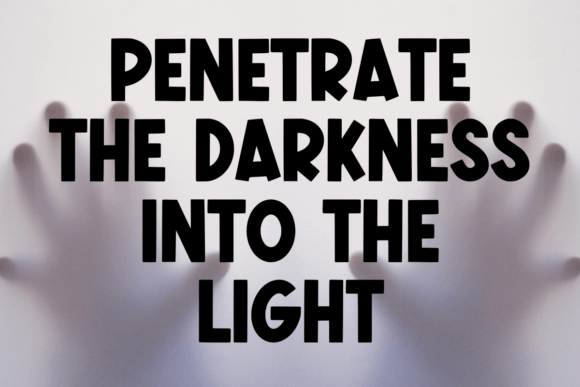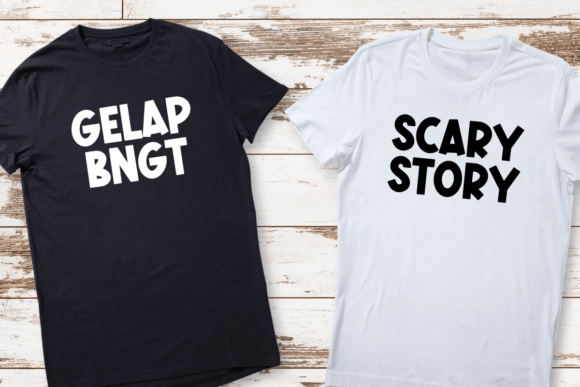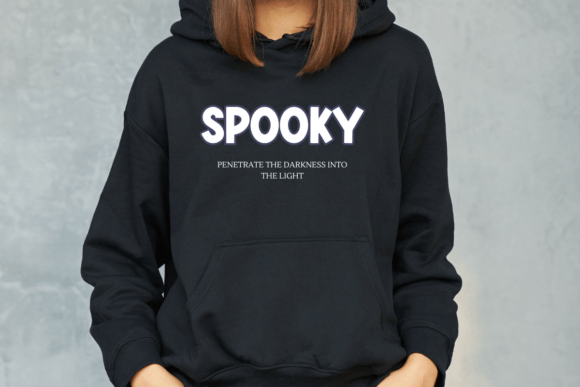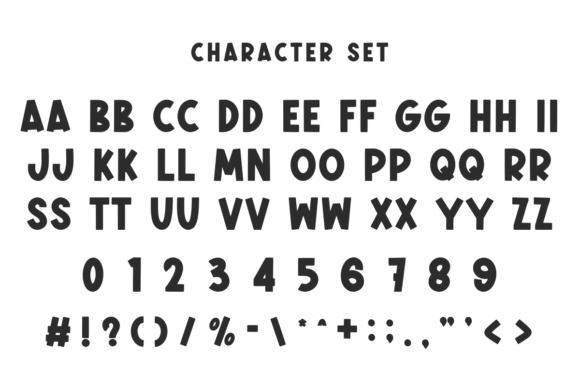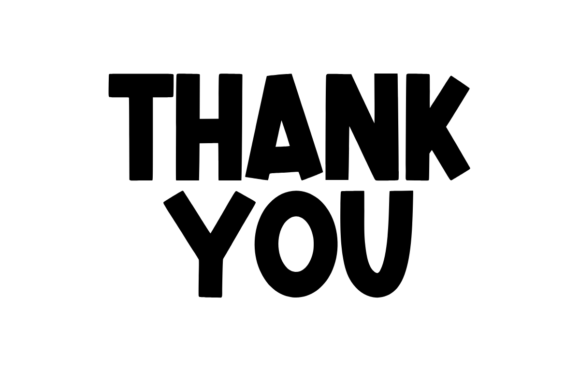
The Designer’s Delight: A Deep Dive into Ghoster Font
I’ll never forget the time I was working on a project for a client who wanted a playful, yet sophisticated look. I had spent hours scouring the internet for the perfect font, but nothing seemed quite right. That was until I stumbled upon Ghoster Font. This bold and charming display font has been a game-changer for my designs, and I’m excited to share my experience with you. ✨
An Honest Review of Ghoster Font
So, what makes Ghoster Font so special? Let’s dive into the good stuff and a few quirks I’ve discovered. 🤔
- ✨ Unique Character: Ghoster Font has a whimsical and quirky personality that sets it apart from other fonts.
- ✅ Highly Readable: Despite its bold nature, Ghoster Font remains clear and easy to read, even at smaller sizes.
- 💡 Versatile: This font can be used for a wide range of projects, from posters and logos to social media graphics and more.
- ⚠️ Limited Use in Body Text: While Ghoster Font is amazing for headlines and titles, it may not be the best choice for longer body text due to its bold nature.
- 🤔 Kerning Issues: As with any font, some users may experience kerning issues, especially when using certain character combinations.
The Backstory of Ghoster Font
While the true origins of Ghoster Font are unclear, it’s said to have been inspired by the quirky, offbeat designs of the 1980s. The font’s creator aimed to capture the essence of a bygone era, blending playfulness with sophistication.
| Font Name | Ghoster Font |
| Author | Minimalist Eyes |
Q: What type of projects is Ghoster Font best suited for?
A: Ghoster Font is perfect for creative projects that require a bold, eye-catching look, such as posters, logos, social media graphics, and more.
Q: Is Ghoster Font available in different weights or styles?
A: Currently, Ghoster Font is available as a single weight. However, some platforms may offer variations or alternatives.